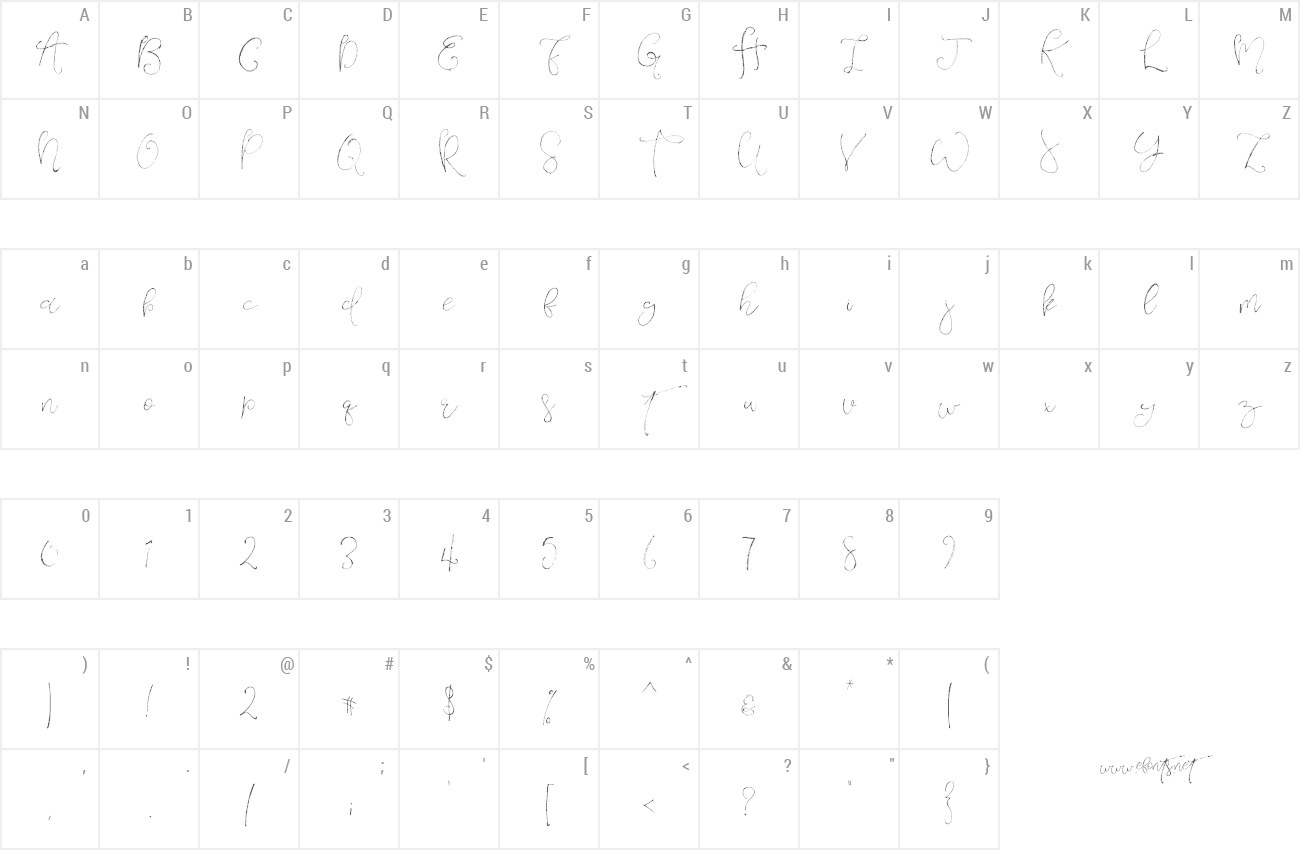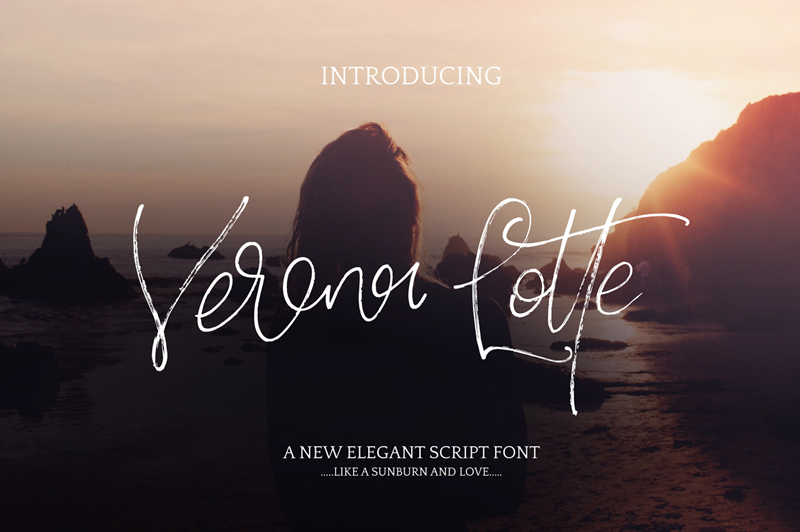
Verona lotte is a hand brushed typeface 100% accessible with multilingual support. It's ideal for signature logos, t-shirts, magazines, social media, restaurant menus, greeting cards, invitations, weddings, headers and much more. It comes with a personal and commercial license which gives you permission to use it in just about any project. |